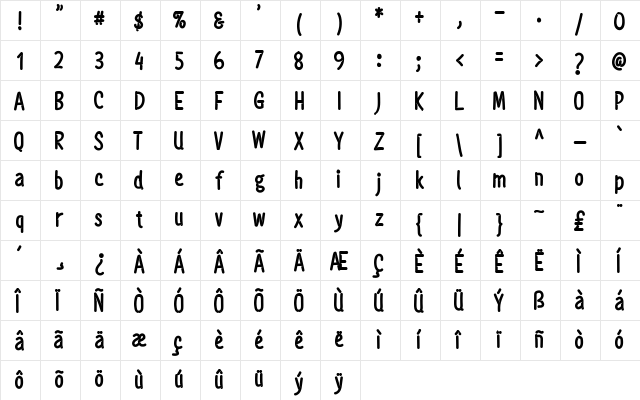
Mightyful Regular
Design Context for Mightyful Typeface
Mightyful is a composed and adaptable typeface that performs quietly and consistently across a wide range of design contexts.
Pro Tip: Use Mightyful in both headline and body roles to test its range before committing to a single application.